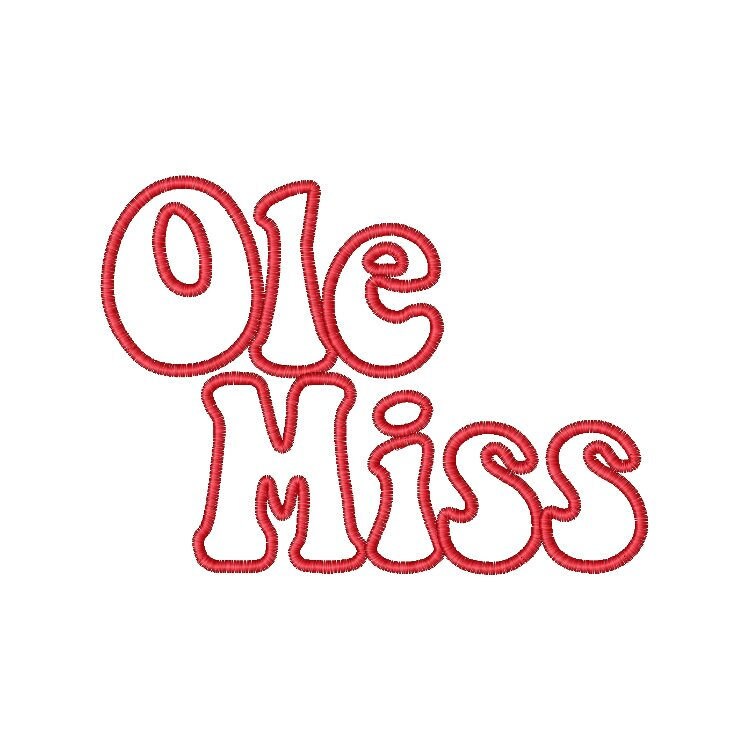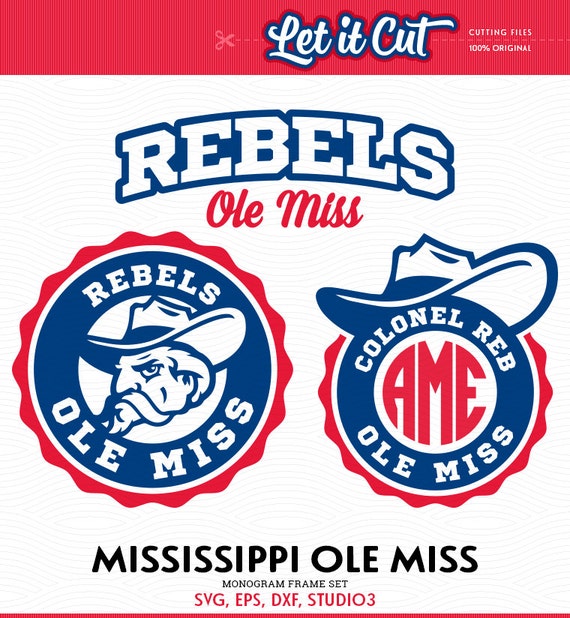
What Font Does Ole Miss Use . In these pages, you will find the exact colors, fonts, spacing and all physical attributes pertaining to the marks and styles of. The official font used for the university of mississippi (ole miss) is trajan pro. The typography however, is different. Avenir next and trajan pro can only be used in. Create and download ole miss font images with brush script style. It is a classic serif font that is commonly. Does anyone have this logo. Learn about the ole miss font, a slightly modified version of brush script, used by the university of mississippi for its logo, jersey lettering, and merchandise. Ole miss is the nickname for the university of mississippi, a public research university in mississippi. I have to do a couple of etched ice buckets for an ole miss alumni meeting by 4 tomorrow. See the history and evolution of the ole miss logo from 1970 to present. Compare the primary, secondary, alternate and helmet logos of the rebels football team. In addition to photography, typography, use of color and graphic element trainings that are offered in the digital depot, our team is.
In addition to photography, typography, use of color and graphic element trainings that are offered in the digital depot, our team is. Avenir next and trajan pro can only be used in. In these pages, you will find the exact colors, fonts, spacing and all physical attributes pertaining to the marks and styles of. The official font used for the university of mississippi (ole miss) is trajan pro. See the history and evolution of the ole miss logo from 1970 to present. Does anyone have this logo. Learn about the ole miss font, a slightly modified version of brush script, used by the university of mississippi for its logo, jersey lettering, and merchandise. It is a classic serif font that is commonly. Create and download ole miss font images with brush script style. The typography however, is different.
What Font Does Ole Miss Use Avenir next and trajan pro can only be used in. Does anyone have this logo. Ole miss is the nickname for the university of mississippi, a public research university in mississippi. The official font used for the university of mississippi (ole miss) is trajan pro. In these pages, you will find the exact colors, fonts, spacing and all physical attributes pertaining to the marks and styles of. It is a classic serif font that is commonly. Create and download ole miss font images with brush script style. See the history and evolution of the ole miss logo from 1970 to present. In addition to photography, typography, use of color and graphic element trainings that are offered in the digital depot, our team is. The typography however, is different. I have to do a couple of etched ice buckets for an ole miss alumni meeting by 4 tomorrow. Learn about the ole miss font, a slightly modified version of brush script, used by the university of mississippi for its logo, jersey lettering, and merchandise. Avenir next and trajan pro can only be used in. Compare the primary, secondary, alternate and helmet logos of the rebels football team.
Ole miss Logos What Font Does Ole Miss Use Create and download ole miss font images with brush script style. Ole miss is the nickname for the university of mississippi, a public research university in mississippi. In these pages, you will find the exact colors, fonts, spacing and all physical attributes pertaining to the marks and styles of. The official font used for the university of mississippi (ole miss). What Font Does Ole Miss Use.
Ole Miss for iPhone HD phone wallpaper Pxfuel What Font Does Ole Miss Use It is a classic serif font that is commonly. The typography however, is different. See the history and evolution of the ole miss logo from 1970 to present. Learn about the ole miss font, a slightly modified version of brush script, used by the university of mississippi for its logo, jersey lettering, and merchandise. The official font used for the. What Font Does Ole Miss Use.
Ole Miss Script Logo Brands of the World™ Download vector logos and What Font Does Ole Miss Use Does anyone have this logo. In these pages, you will find the exact colors, fonts, spacing and all physical attributes pertaining to the marks and styles of. Avenir next and trajan pro can only be used in. Create and download ole miss font images with brush script style. The typography however, is different. Learn about the ole miss font, a. What Font Does Ole Miss Use.
Ole Miss PNG Rebels png Sublimation Alphabet Etsy What Font Does Ole Miss Use It is a classic serif font that is commonly. Compare the primary, secondary, alternate and helmet logos of the rebels football team. Create and download ole miss font images with brush script style. The official font used for the university of mississippi (ole miss) is trajan pro. I have to do a couple of etched ice buckets for an ole. What Font Does Ole Miss Use.
Ole Miss Applique Embroidery Design Ole Miss Embroidery Etsy What Font Does Ole Miss Use The typography however, is different. I have to do a couple of etched ice buckets for an ole miss alumni meeting by 4 tomorrow. Learn about the ole miss font, a slightly modified version of brush script, used by the university of mississippi for its logo, jersey lettering, and merchandise. In these pages, you will find the exact colors, fonts,. What Font Does Ole Miss Use.